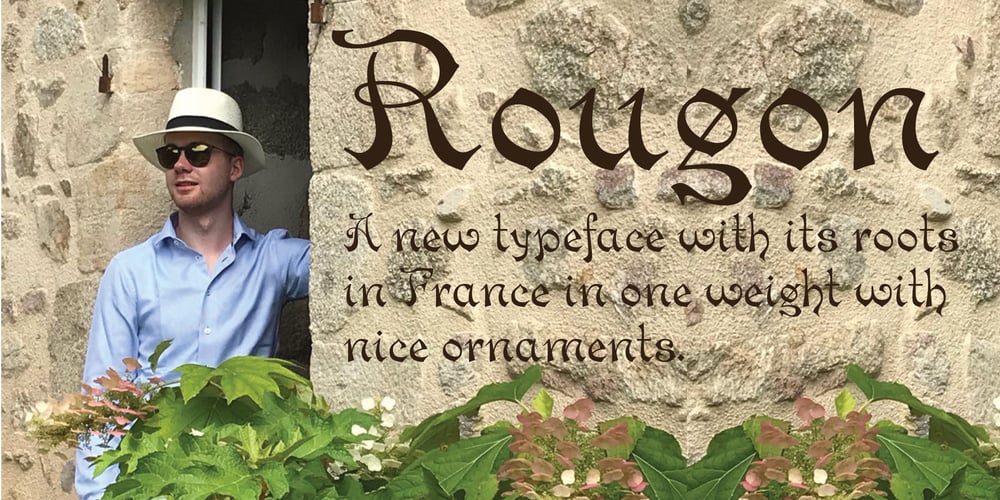
Rougon Font Family was designed by Nicolien van der Keur and published by VanderKeur. Rougon contains 1 styles and family package options. The reason for Nicolien van der Keur to design the Rougon font was the translation of twenty novels written by Emile Zola, a French writer, and translated by Martine Delfos. It follows the lives of the members of the two titular branches of a fictional family living during the Second French Empire (1852–1870) and is one of the most prominent works of the French naturalism literary movement.This series deserved a font with French roots and corresponded to the period in which Zola’s books were written and published, the period between 1870 and 1893, the end of the nineteenth century. Extensive research into French historical typefaces has led to a type specimen from the French type foundry Deberny et Cie in Paris around 1907. It turned out to be good and helpful source as it contained a sample of a typeface that reflected the content and style of the novels, but also represented the period in which the books were written in France. A large part of the novels are about the generations of Rougon, so it seemed a natural choice to give the font that name. It is available in one weight and contains stylized portraits of Emile Zola and the French Marianne. This font also contains various ornaments.